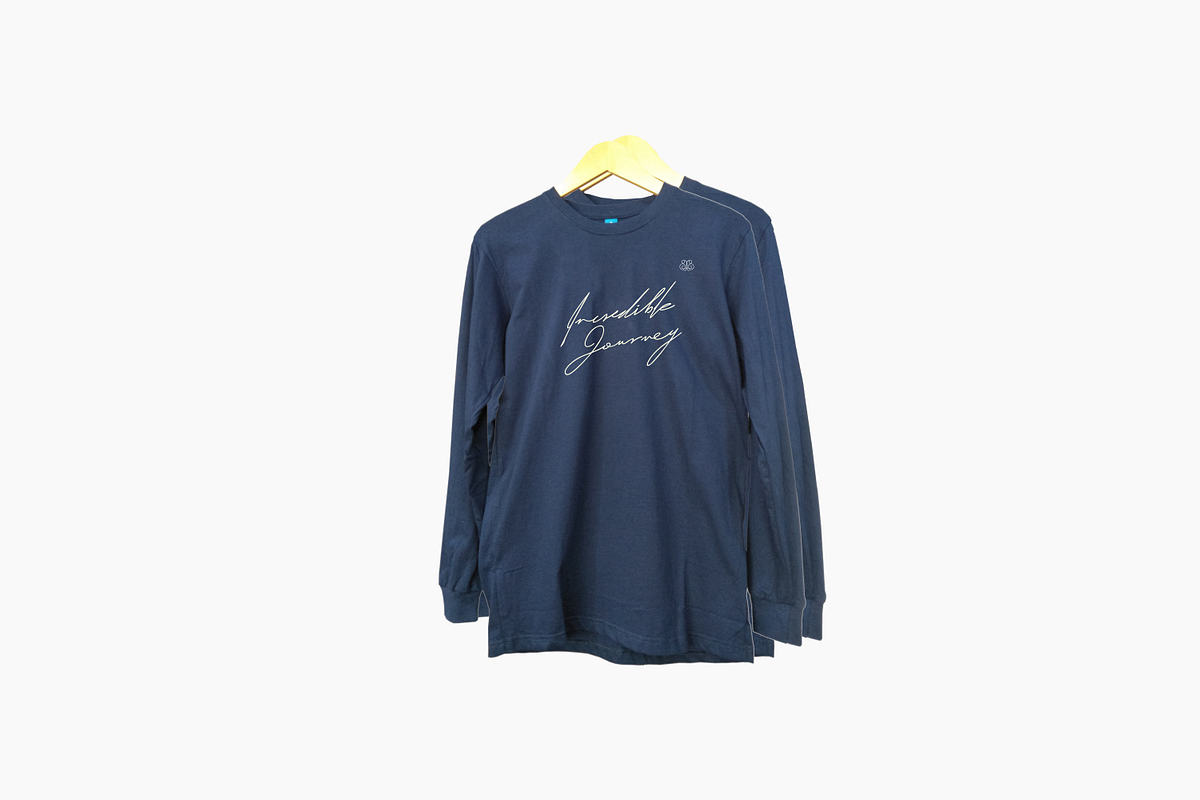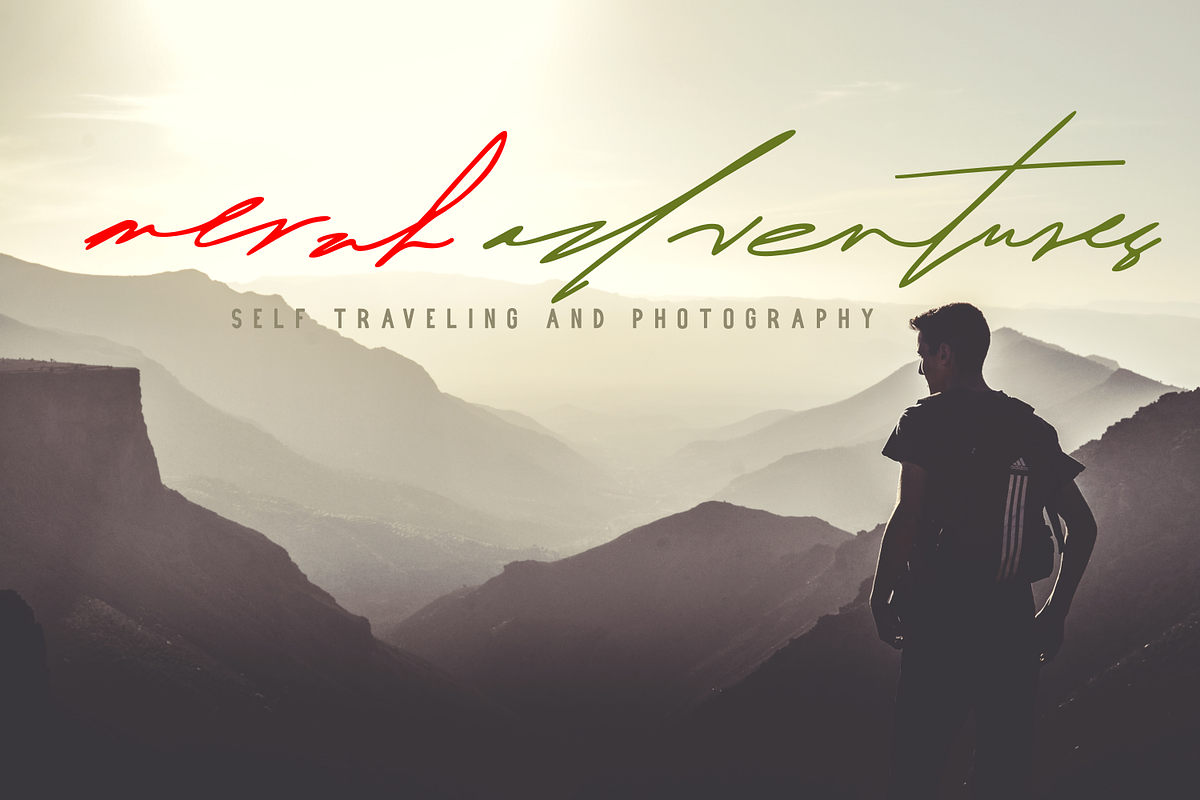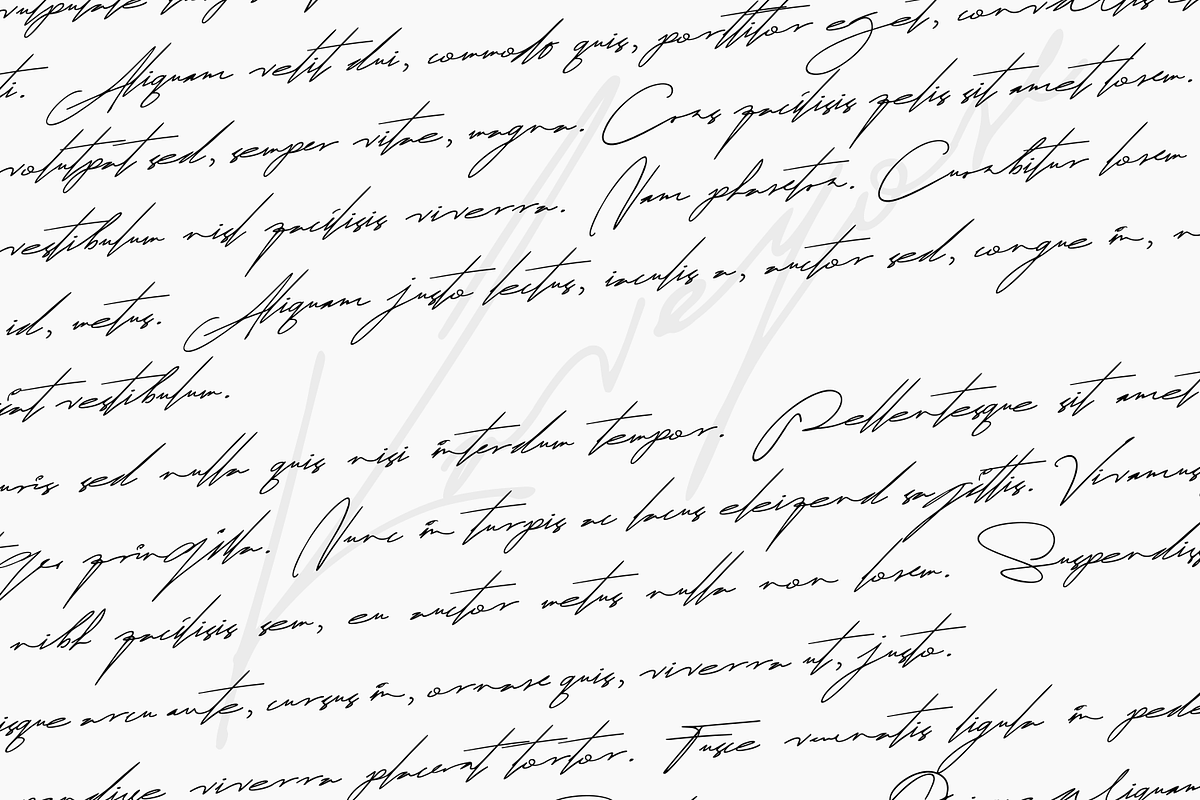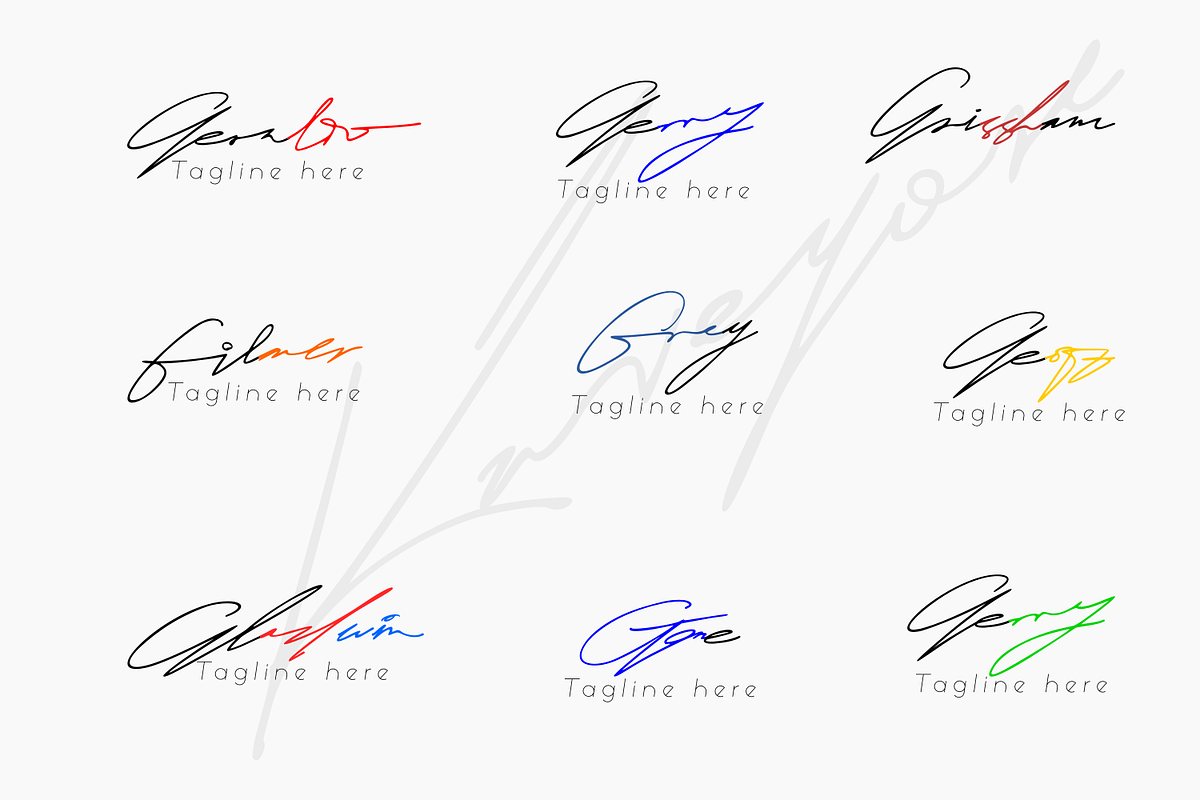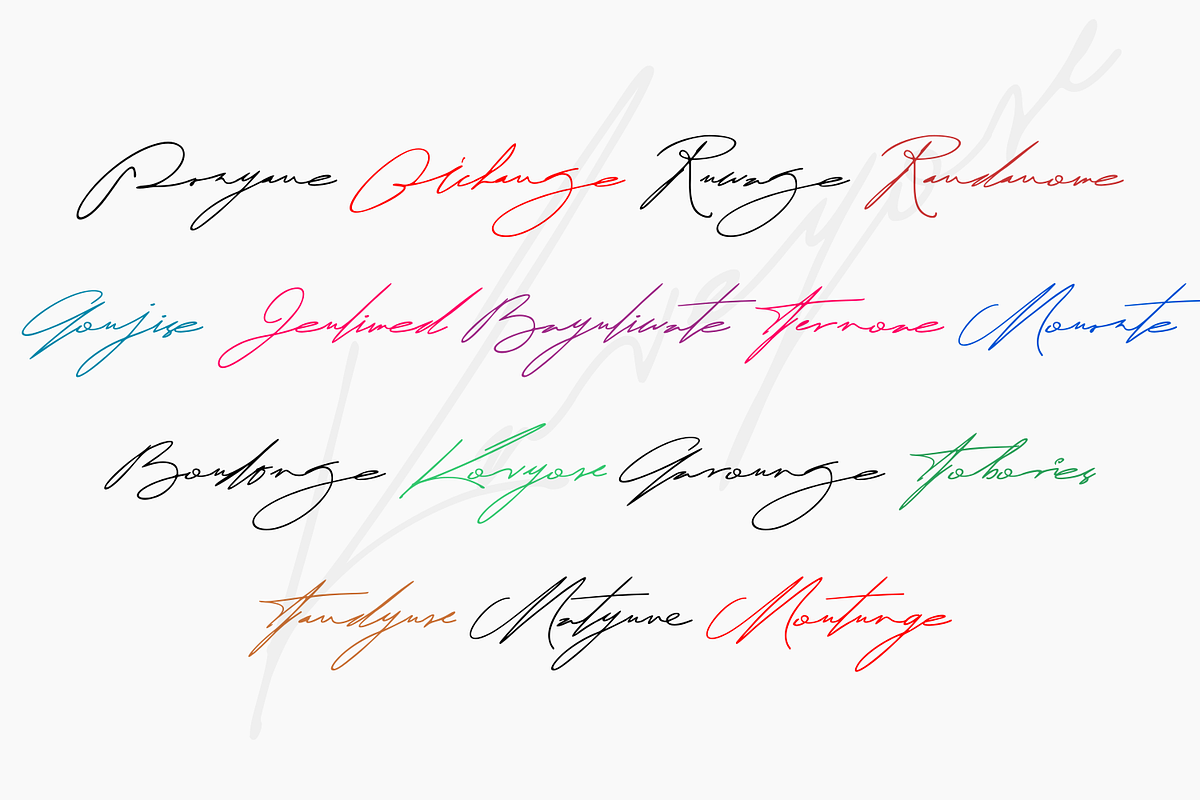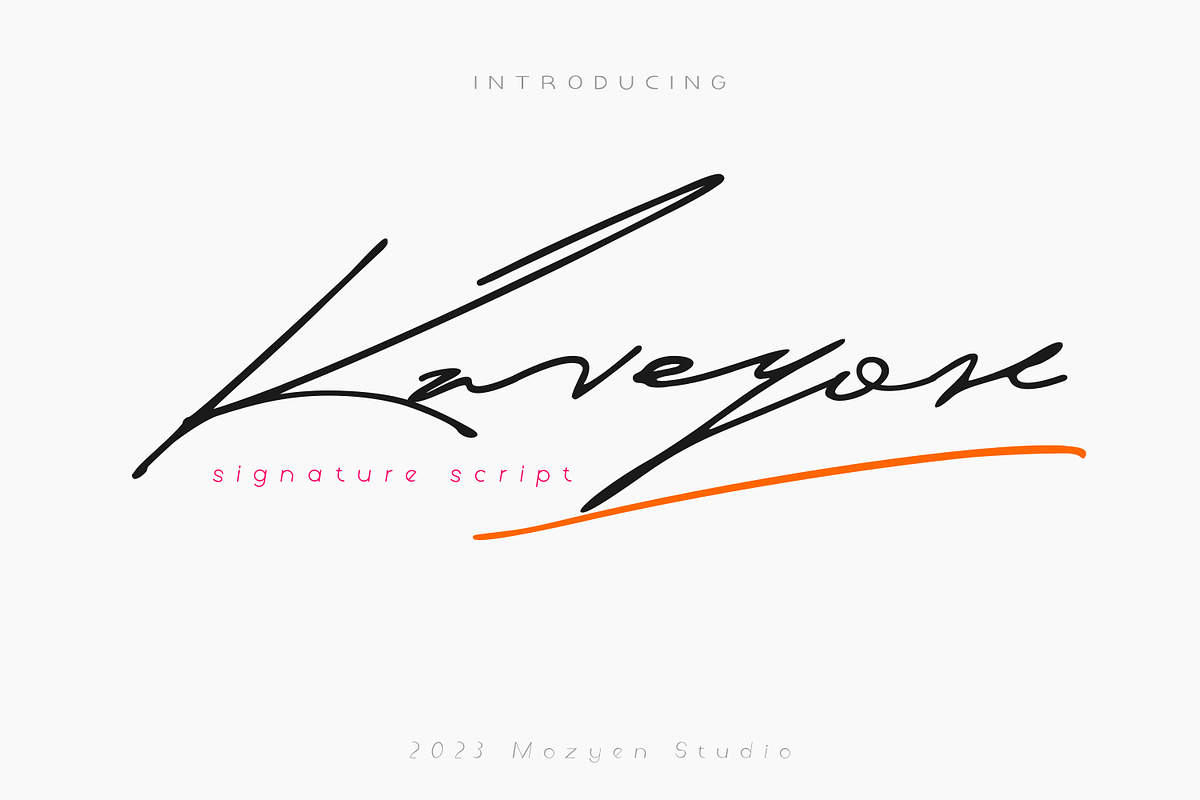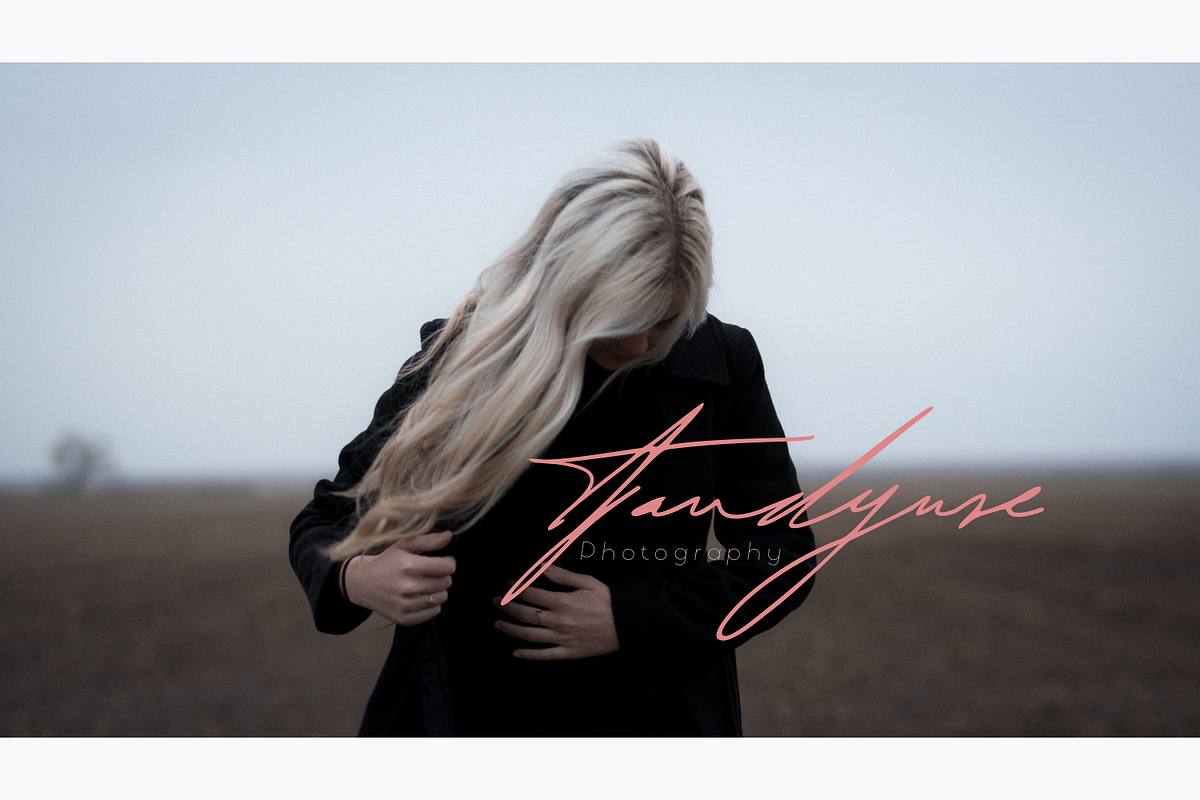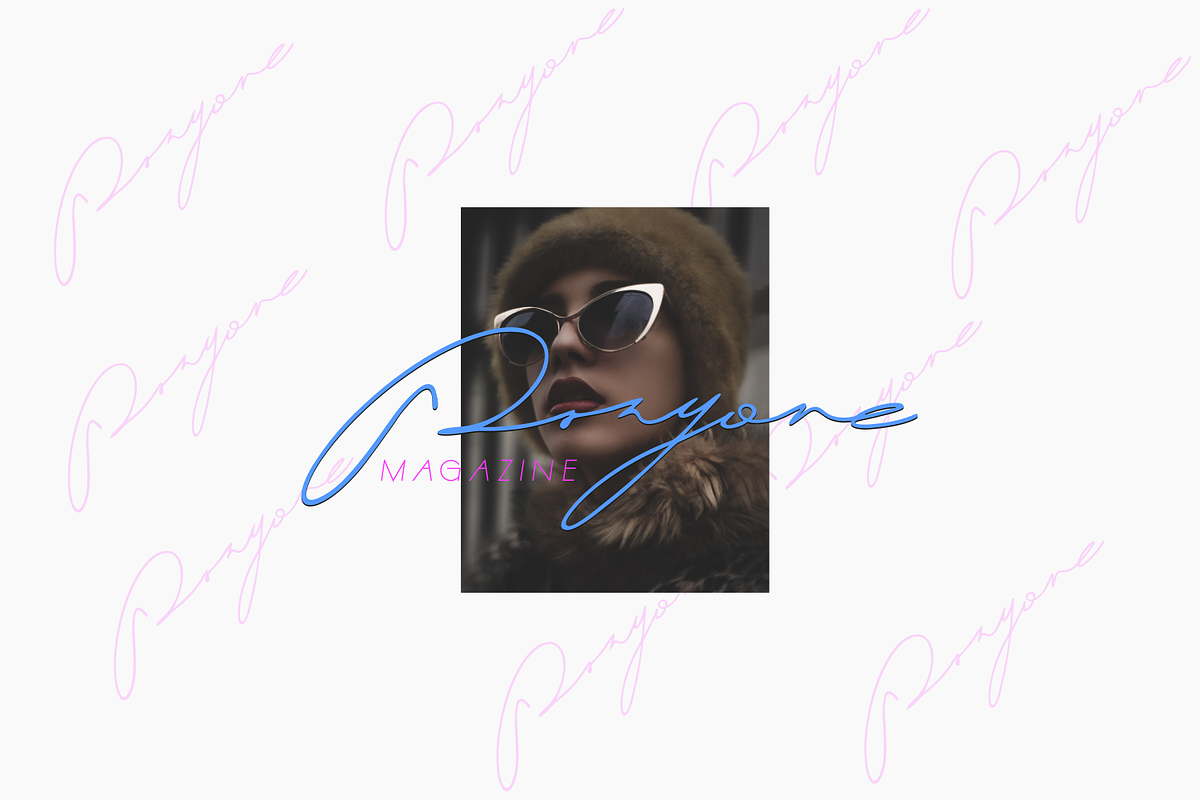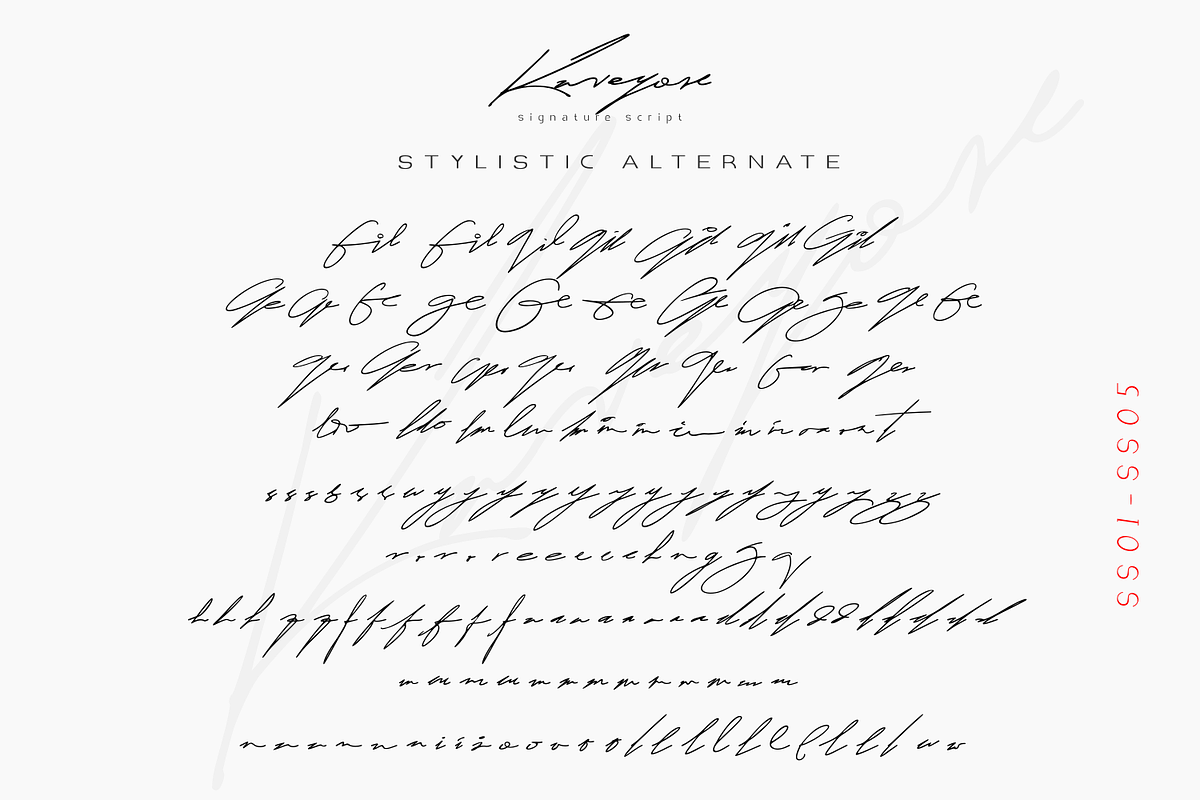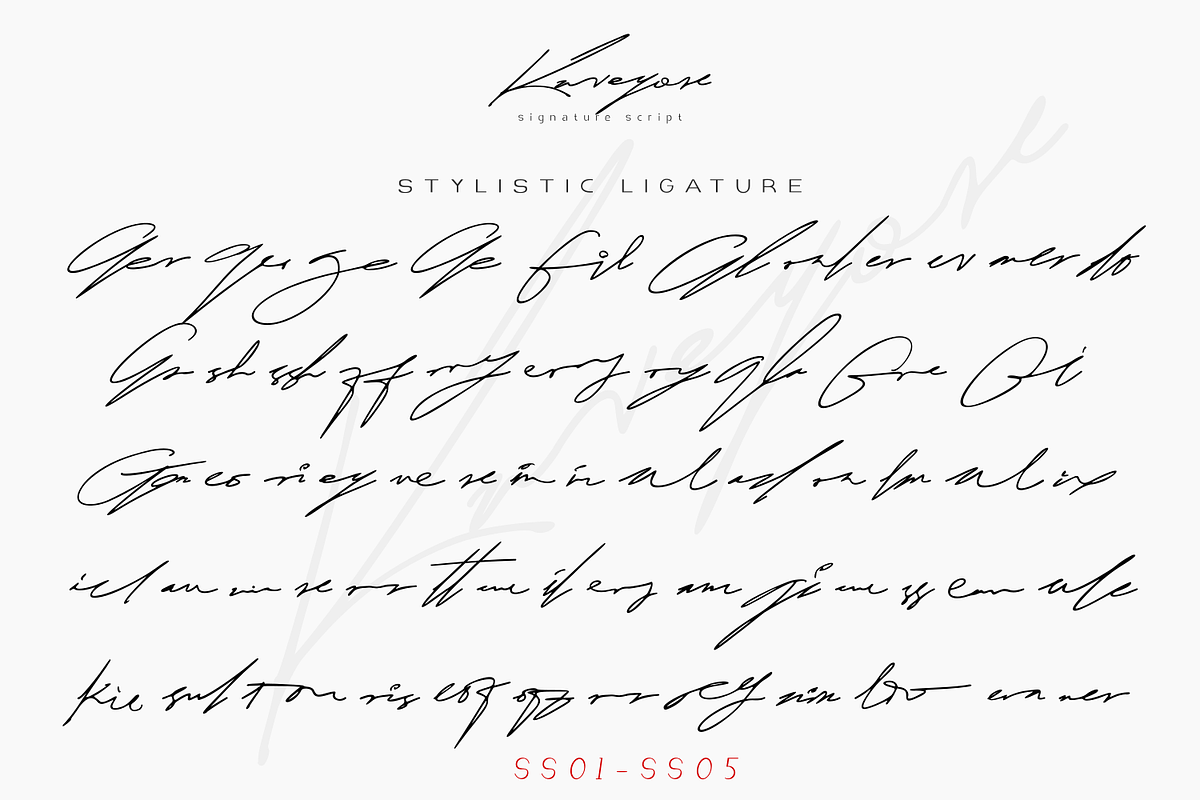
Kaveyore | Signature Script
Introduce Kaveyore Signature Script. This is perfect for your feminine design, you can also make a branding such as cosmetics products, Branding photography, invitation designs or your trademark. Kaveyore is an elegant and flowing handwritten font. It is PUA encoded which means you can access all of the glyphs and swashes with ease! It features a varying baseline, smooth lines, gorgeous glyphs and stunning alternates. It maintains its classy calligraphic influences while feeling contemporary and fresh. Fall in love with this font and bring your projects to the highest levels!
Available: -Uppercase -Lowercase -Numeral and punctuation -Multilingual support -Stylistic ligature : complete 2 ligatures and several 3 ligatures -Stylistic character alternate -access with PUA encoded.
Stylistic Ligature : Ger ger ge Ge Gil Gl ral er ev mer do Gr sh ssh ff rry erry ry gla Gre Gi Gen eo ri ey ne re in ir al ad ra lm al ix icl an nia re rr tt ene il ery am gi ene ss ean ale kie sul ton ris eof off rrey nin ldo era ner in
Stylistic Alternate : off ene ad rry Gi gi ey in Gre eo ff ssh sh Gr do mer ev ral Gl Gil Ge ger Ger t s w y r e h n g z f b a d m n i l
SS01,SS02,SS03,SS04,SS05.